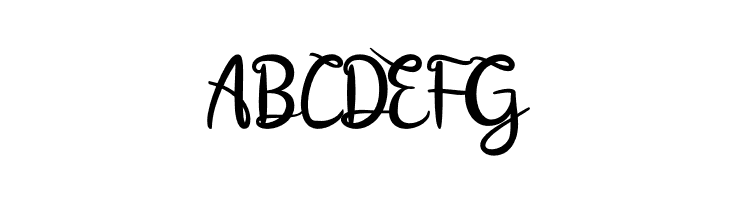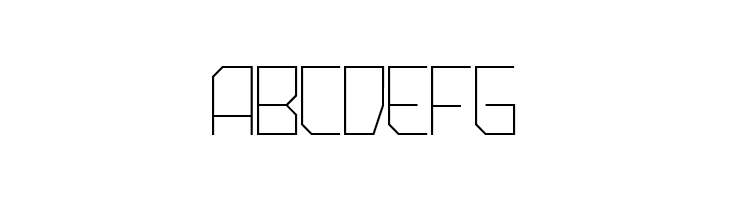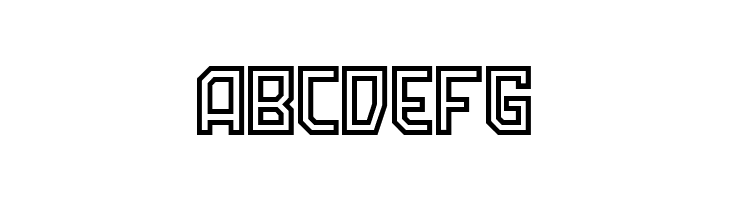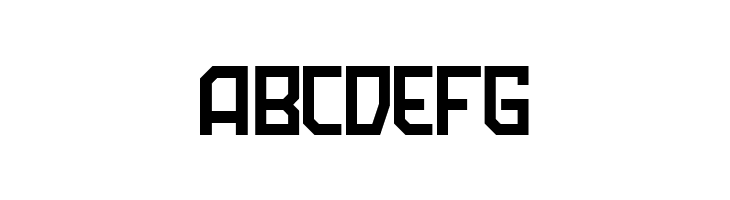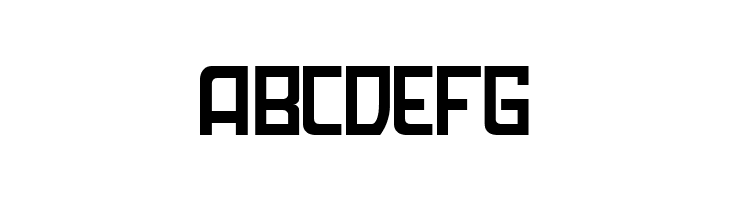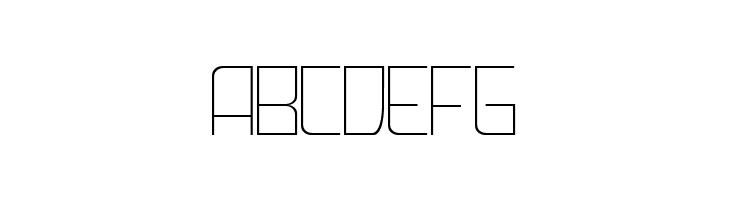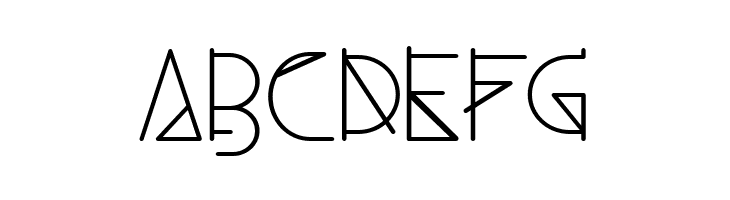
A modern, light, and italic font with smooth strokes and balanced proportions.
A clean, modern sans-serif font with uniform strokes and excellent readability.
A modern, geometric font with artistic and futuristic elements.
A playful and whimsical script font with a handwritten style.
A lively script font with fluid, continuous strokes and a personal touch.
A bold, geometric outline font with a modern, industrial look.
A bold, geometric, and condensed font ideal for impactful headlines.
A geometric, angular font with consistent stroke width and a modern aesthetic.
A modern, geometric font with thin, rounded lines and a minimalist style.
A bold, heavy, and condensed font with rounded edges and a modern, industrial feel.